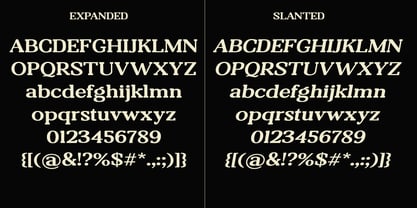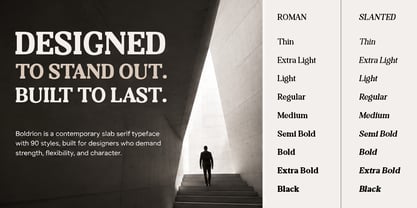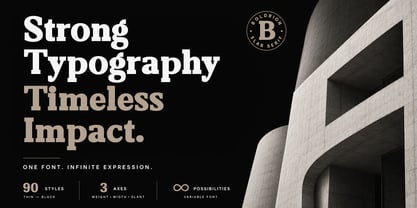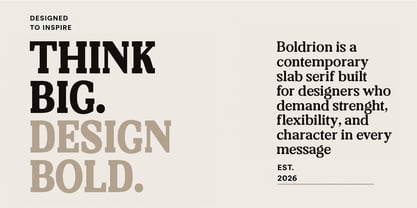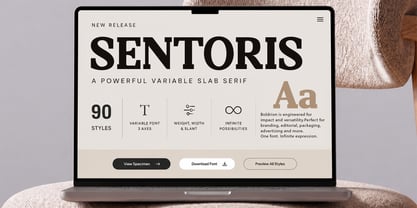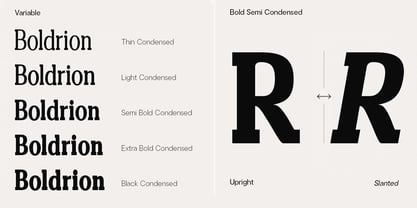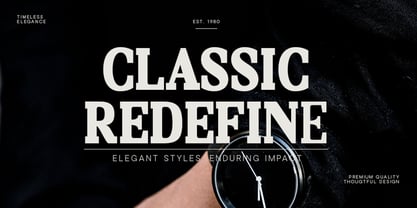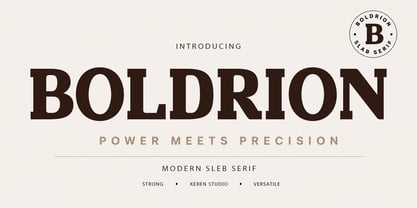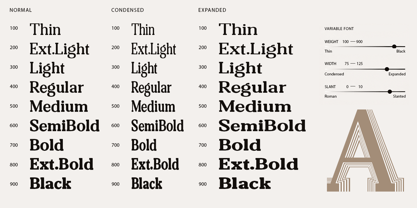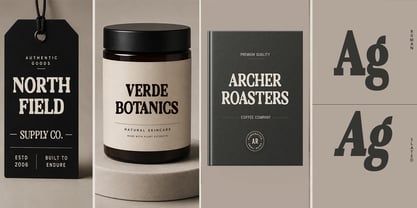
Boldrion
Boldrion is a contemporary variable slab serif designed to deliver strength, versatility, and timeless character. Combining bold geometric structure with refined slab serifs, it creates a confident voice for modern branding while maintaining exceptional readability across print and digital media.
Built as a complete variable type system, Boldrion offers 90 carefully crafted styles across multiple axes, giving designers the freedom to create everything from compact editorial headlines to powerful brand identities. Whether you're designing logos, packaging, advertising campaigns, magazines, websites, or corporate identities, Boldrion adapts effortlessly to every creative direction.
Every curve, serif, and proportion has been carefully refined to provide a balanced appearance with a commanding presence. From elegant minimalism to bold visual impact, Boldrion delivers consistent performance in every weight and width.